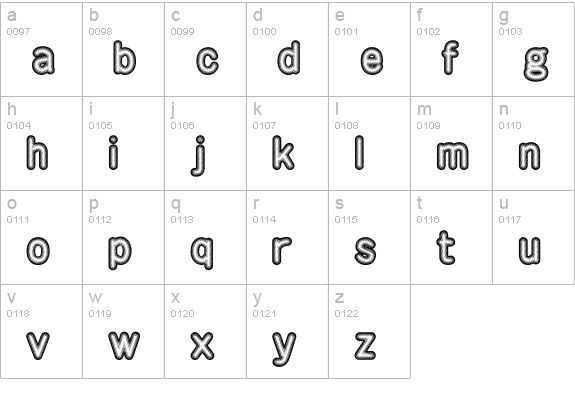
Introducing Rotondo Silver, a truly captivating font that exudes timeless elegance and sophistication. With its sleek, rounded letterforms and delicate silver accents, this font is sure to add a touch of luxury to any design project. Rotondo Silver is the perfect choice for those seeking a font that effortlessly combines modernity with classic charm. Its smooth curves and refined details make it an excellent option for branding, logo design, editorial layouts, and more. What makes Rotondo Silver even more irresistible is the fact that it is completely free. Yes, you read that correctly! This stunning font can be freely downloaded at FontsMarket.com, allowing designers and creatives to enhance their projects without breaking the bank. With its versatility and beauty, Rotondo Silver is bound to become a go-to font for many. Whether you're designing a high-end fashion magazine, a luxurious wedding invitation, or a sophisticated website, this font will undoubtedly elevate your work to new heights. So why wait? Download Rotondo Silver today from FontsMarket.com and unlock the power of this exquisite font. Transform your designs into works of art and leave a lasting impression with Rotondo Silver - the free font that redefines elegance.